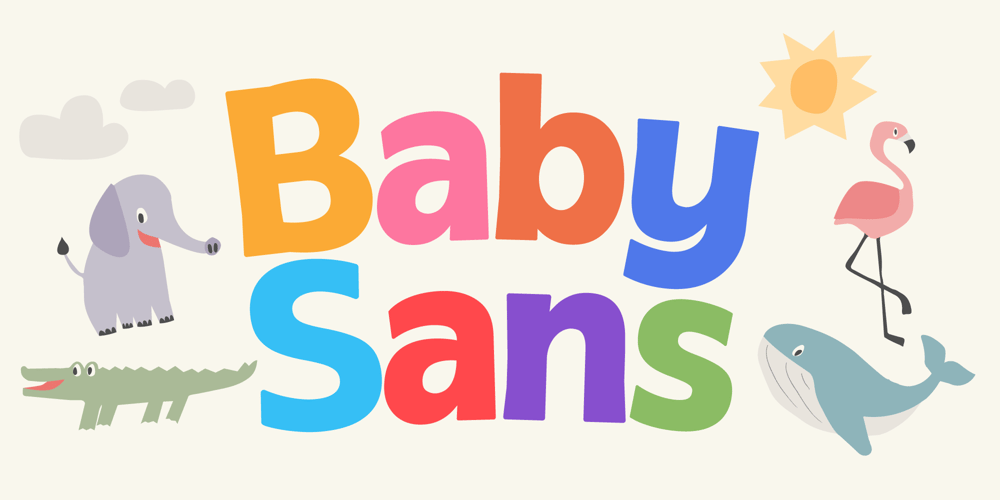
Babysans
Babysans font
Babysans Font Family was designed by Godwin Lim and published by Papertype. Babysans contains 1 styles and family package options. Babysans is a font designed to infuse your designs with playful charm and soft whimsy. Crafted with rounded edges and gentle curves, Babysans radiates warmth, making it the perfect choice for baby collaterals, nurseries and educational materials for young children. Its endearing and approachable style captures the essence of childhood, making it ideal for baby lettering that evokes a sense of joy and innocence.